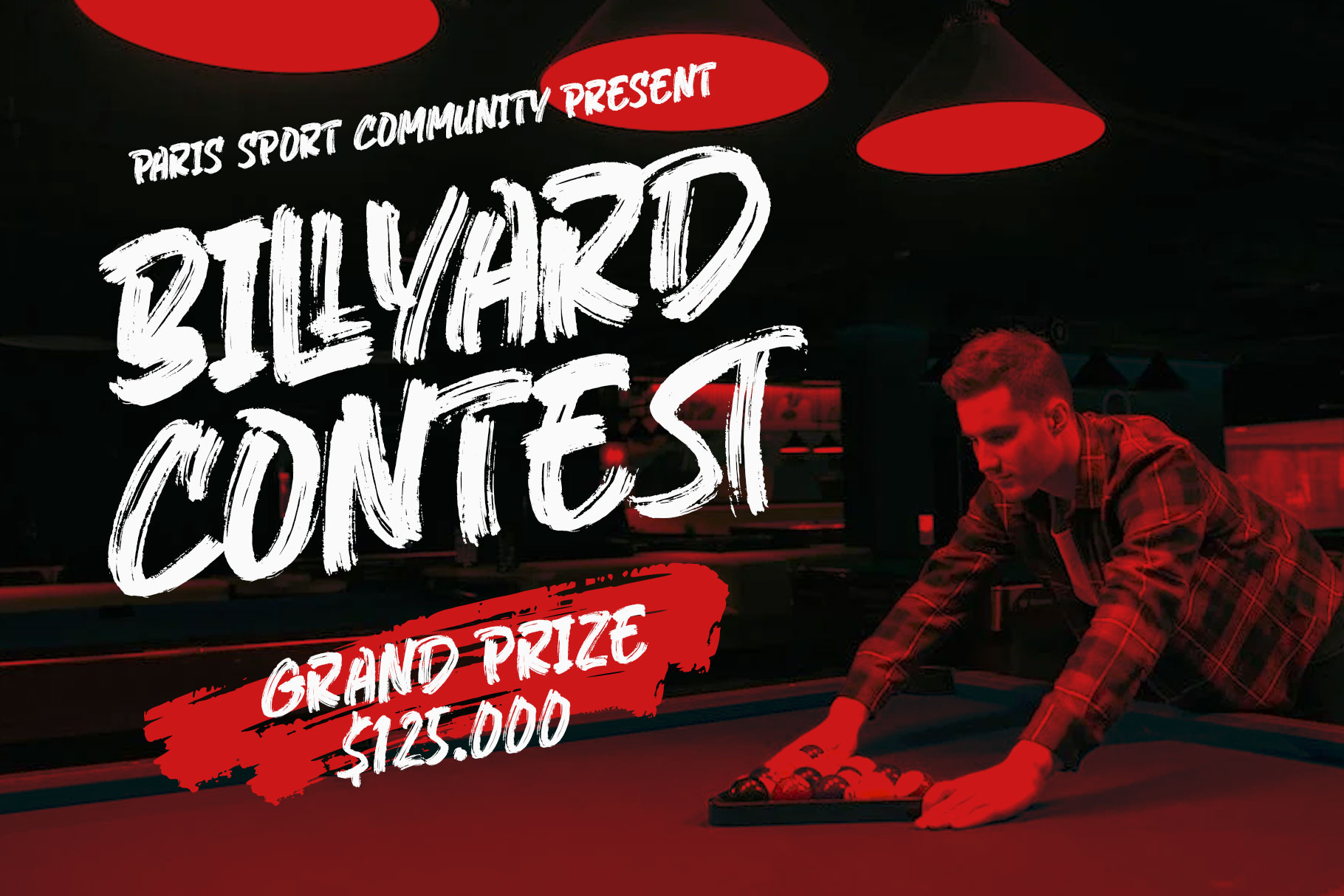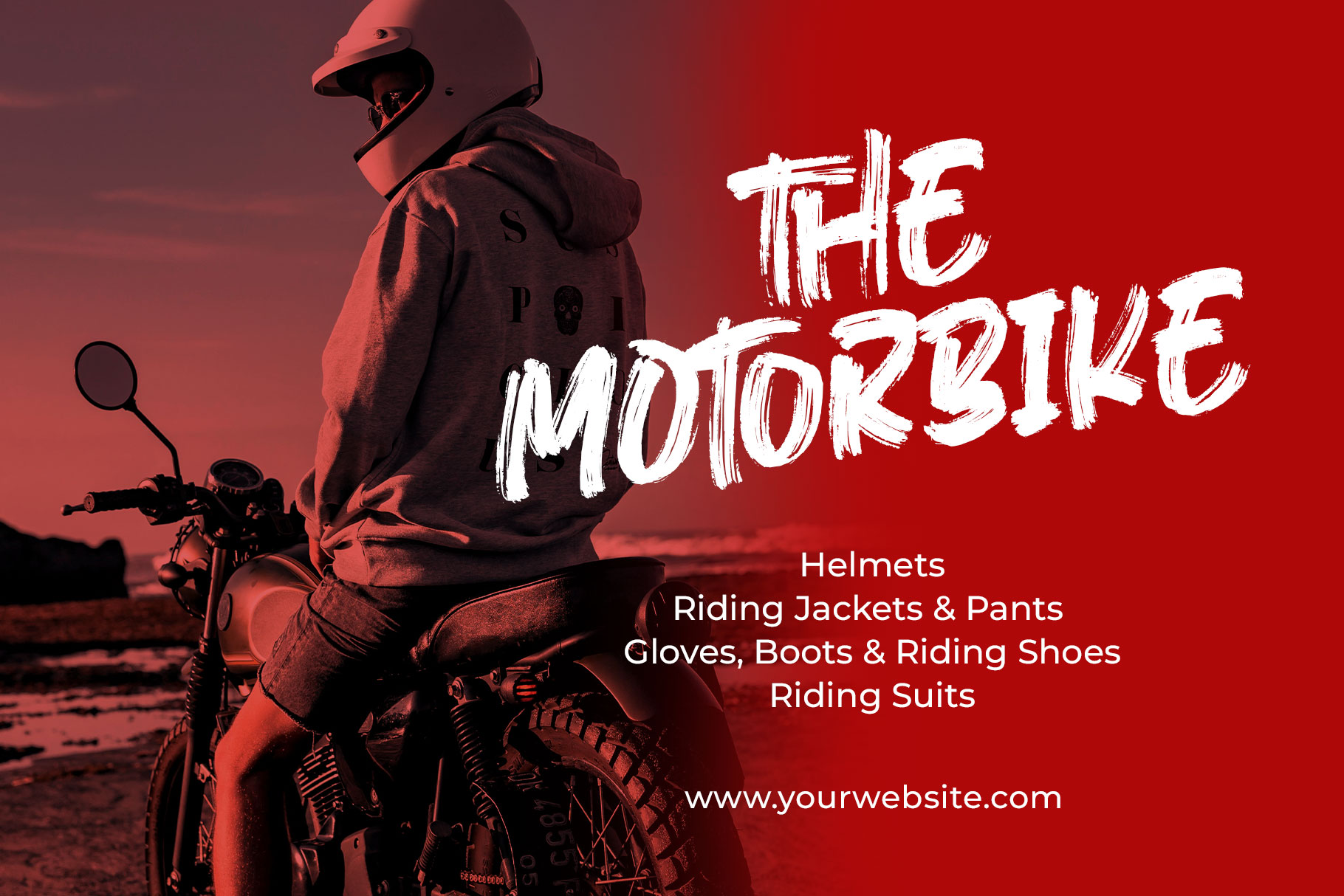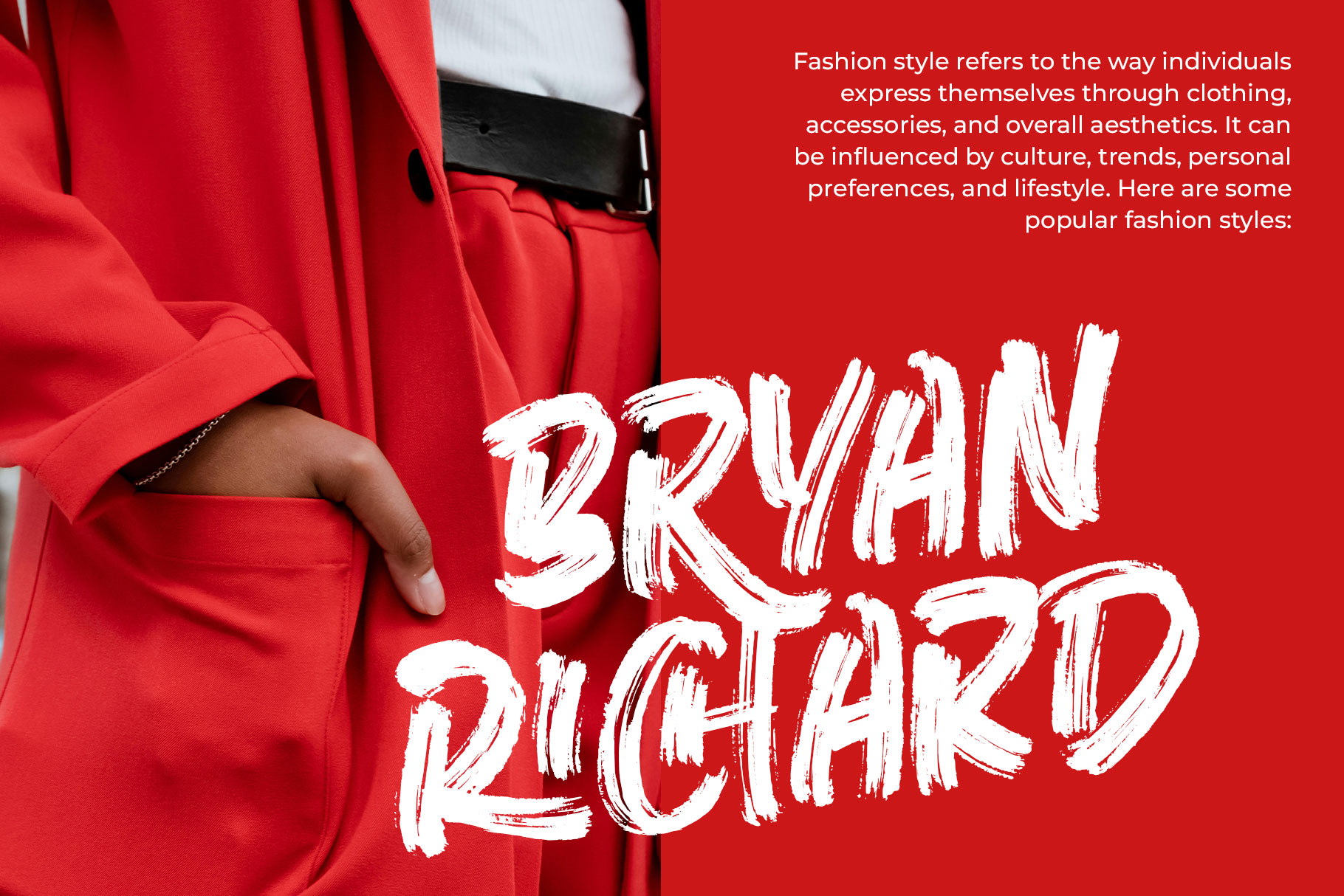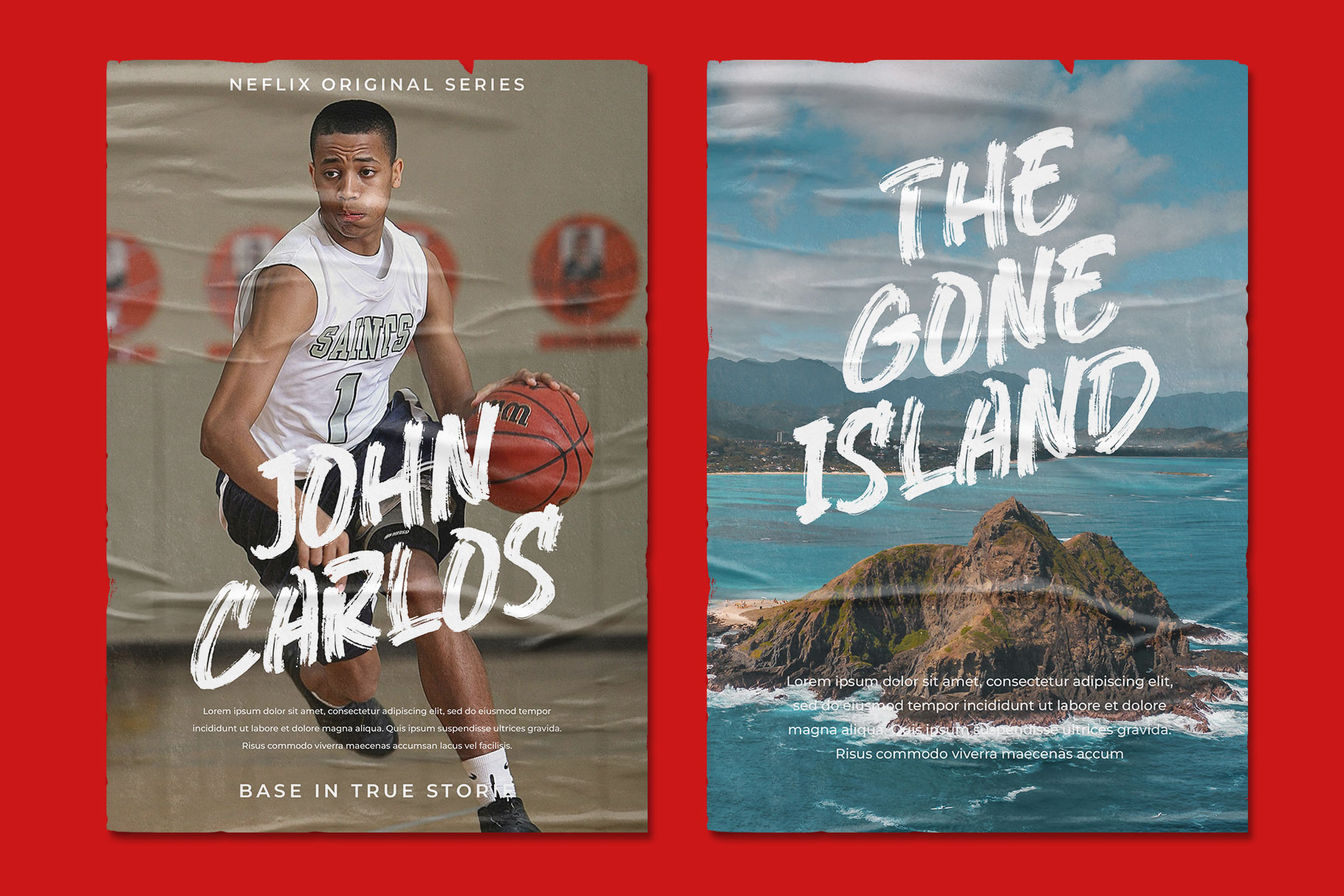
Chanela Authentic Brush Font
Chanela is authentic brush font to mimic the natural, fluid strokes of a real brush, often giving the impression of hand-painted lettering. Chanela is a perfectly choice for any creative endeavor, creating, modern, chic, lifestyle design such as logotype, title, cover, branding, invitations, wedding designs, display and magazine, social media posts, advertisements, printed quotes, product packaging, corporate brand, product designs, labels, photography, watermarks, special events and any other project with modern touch.